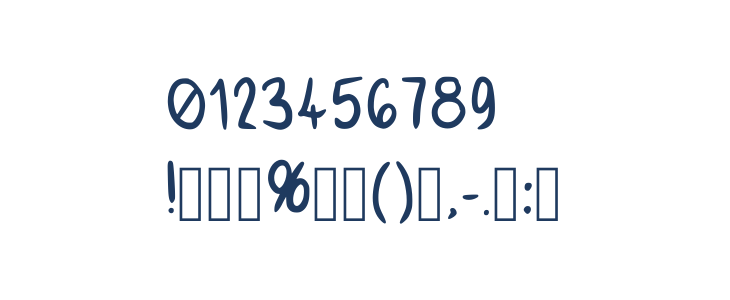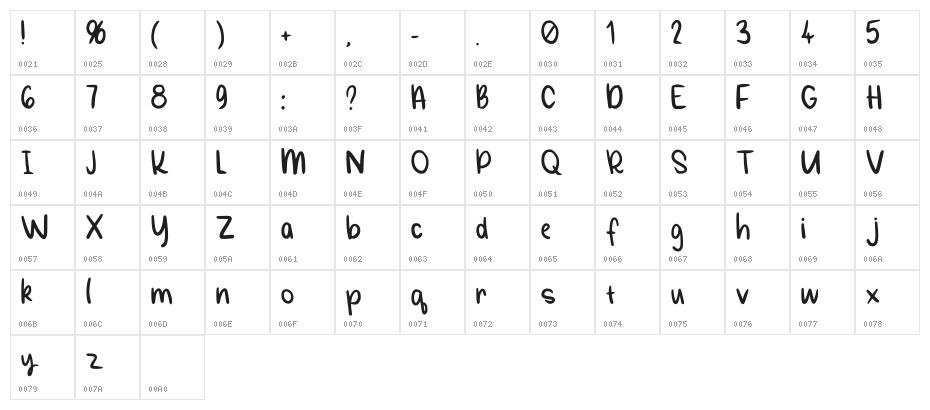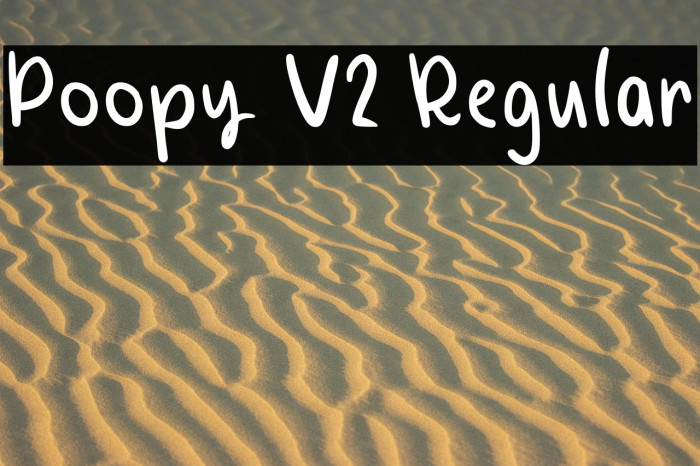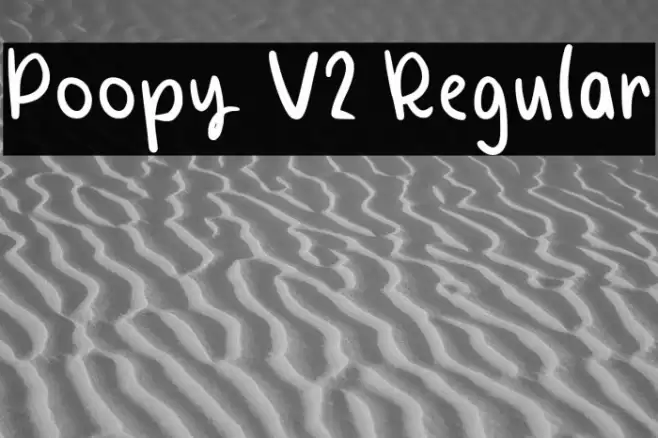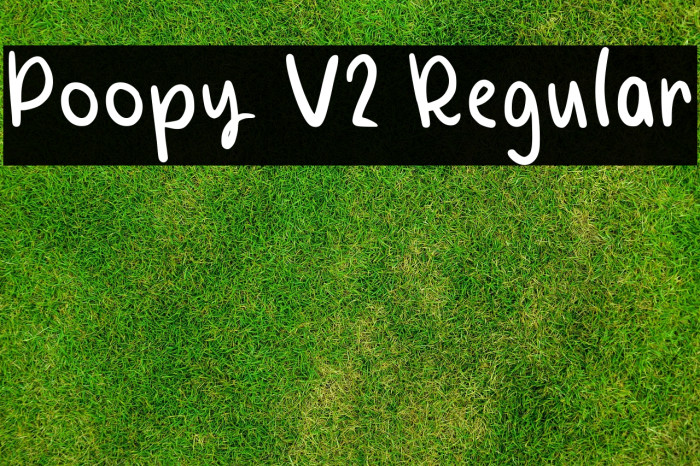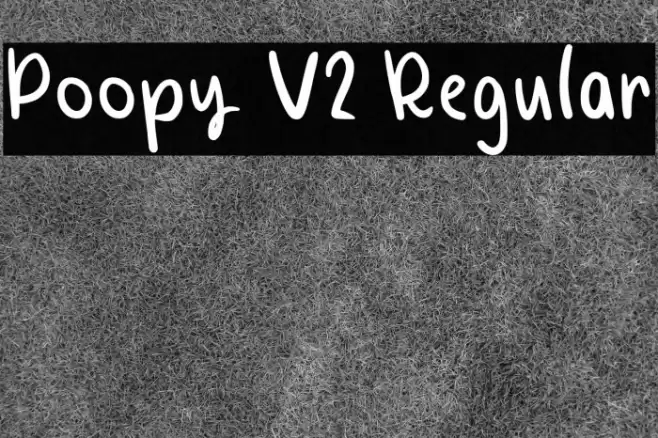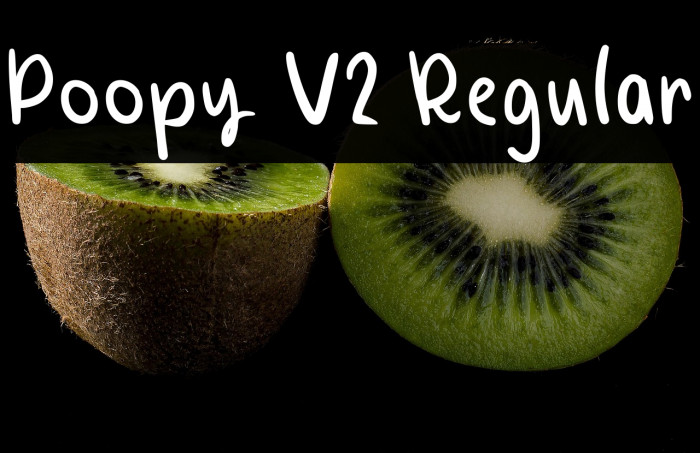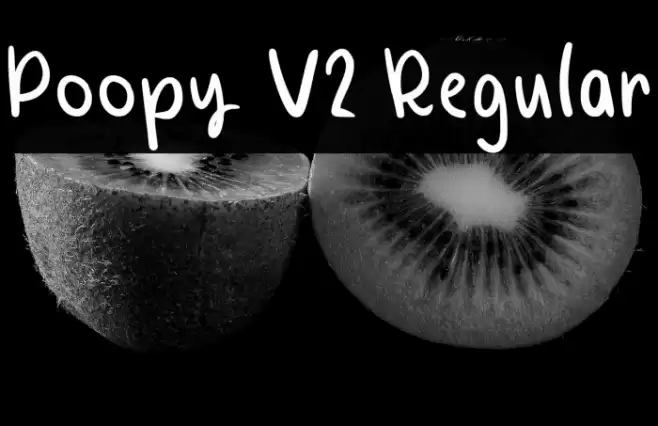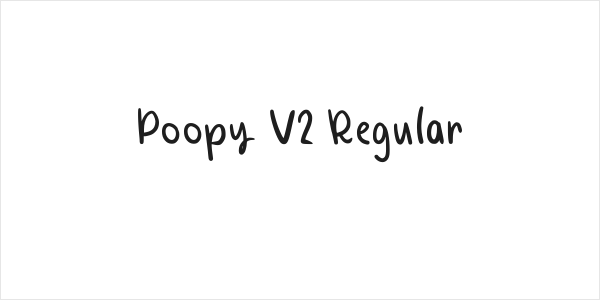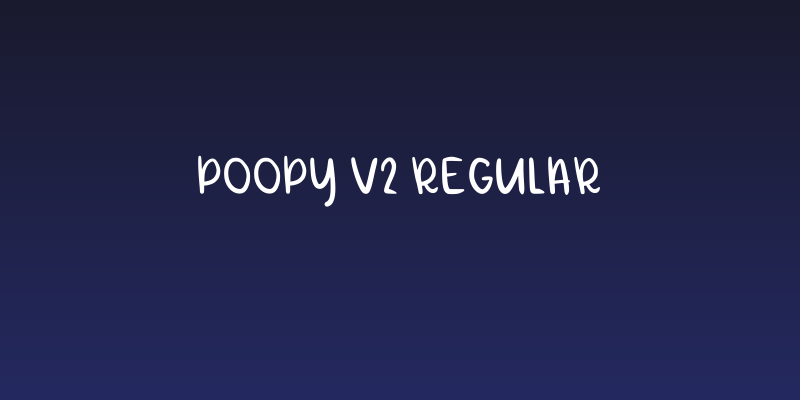
Poopy V2 Regular Font
This playful and whimsical font features a handwritten style with rounded, slightly irregular letterforms that convey a casual and friendly tone. The uppercase and lowercase letters maintain a consistent flow, with a slight tilt that adds to its informal charm. The numbers and special characters are equally playful, making this font ideal for creative projects. Its smooth curves and consistent stroke width provide a harmonious look, while the overall design remains legible and engaging.
| Proposed Projects | Ideal for children's books, greeting cards, playful branding, and social media graphics. |